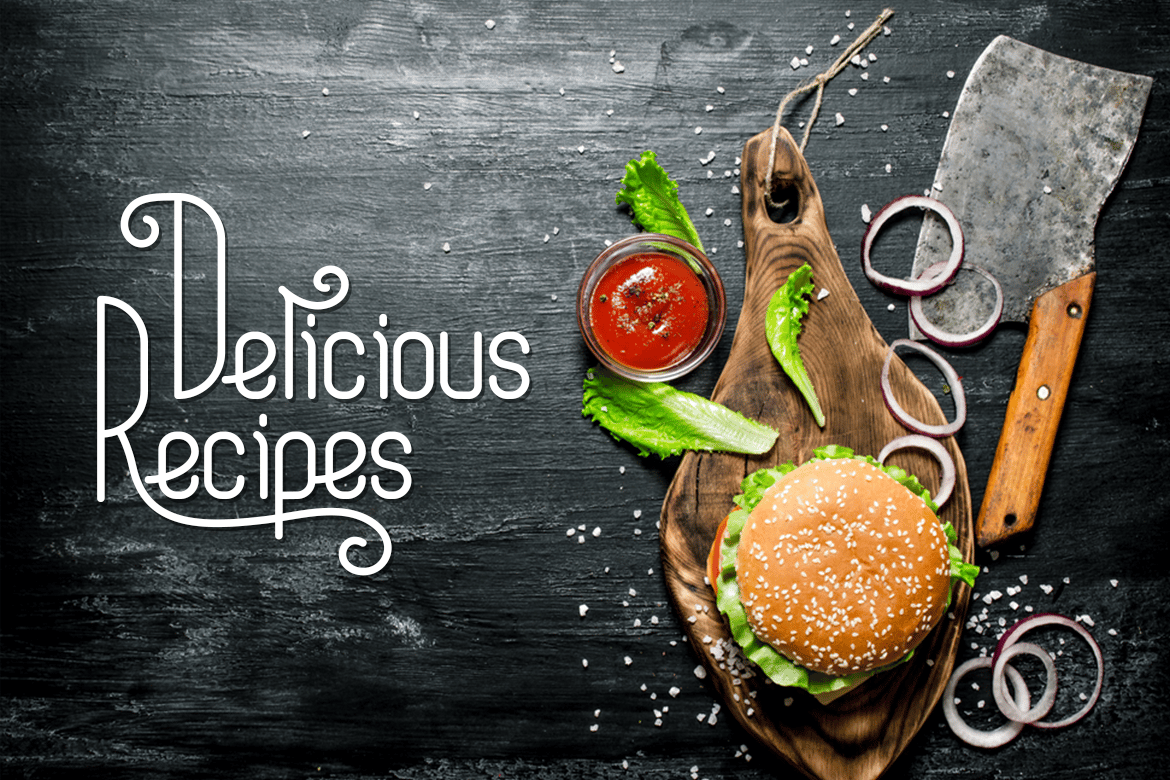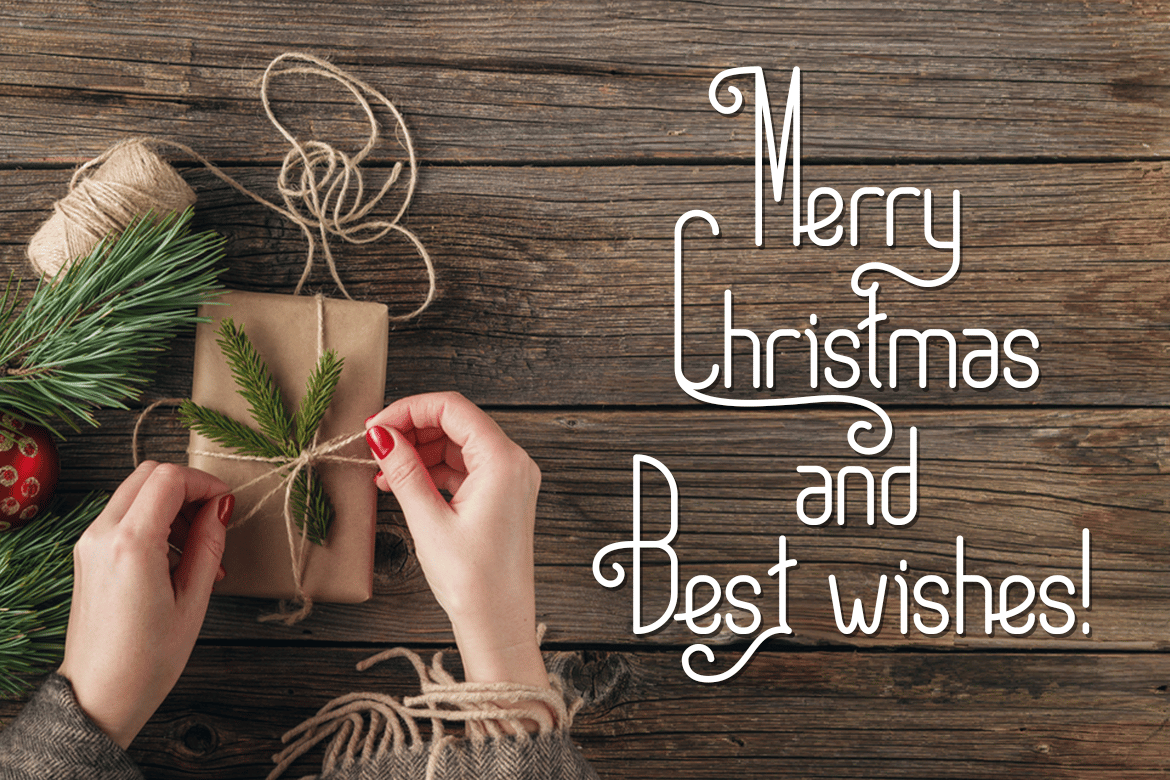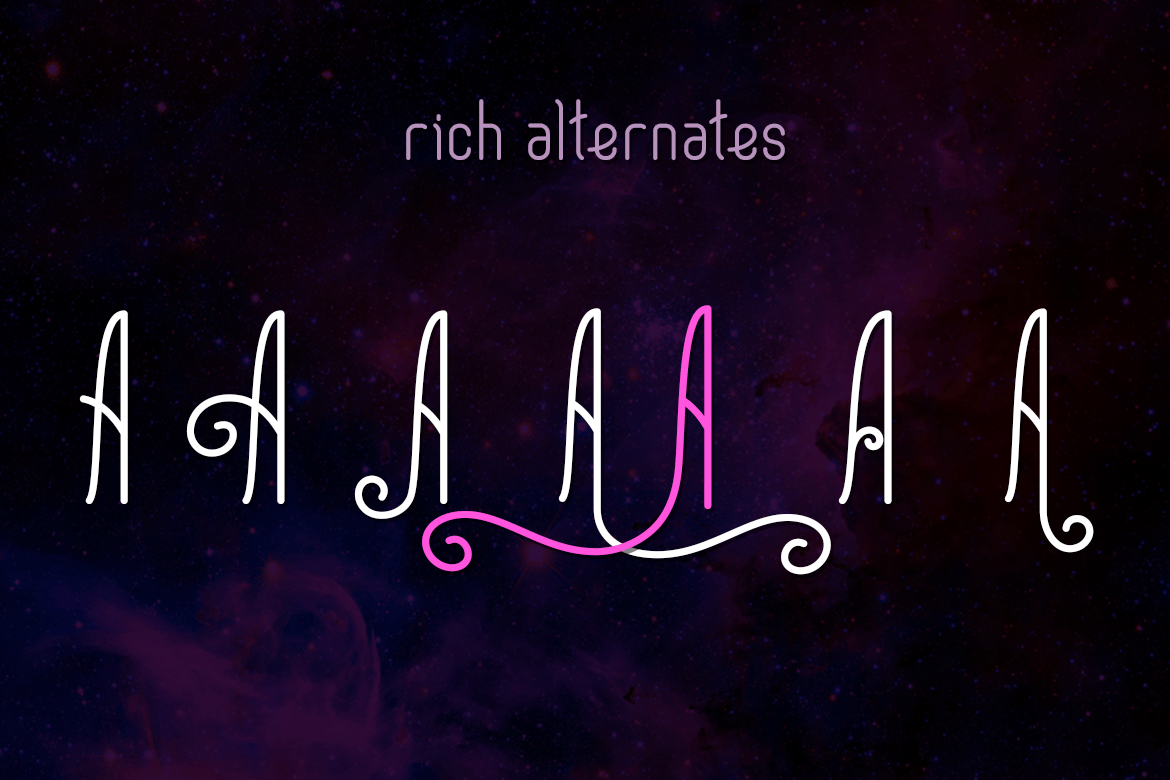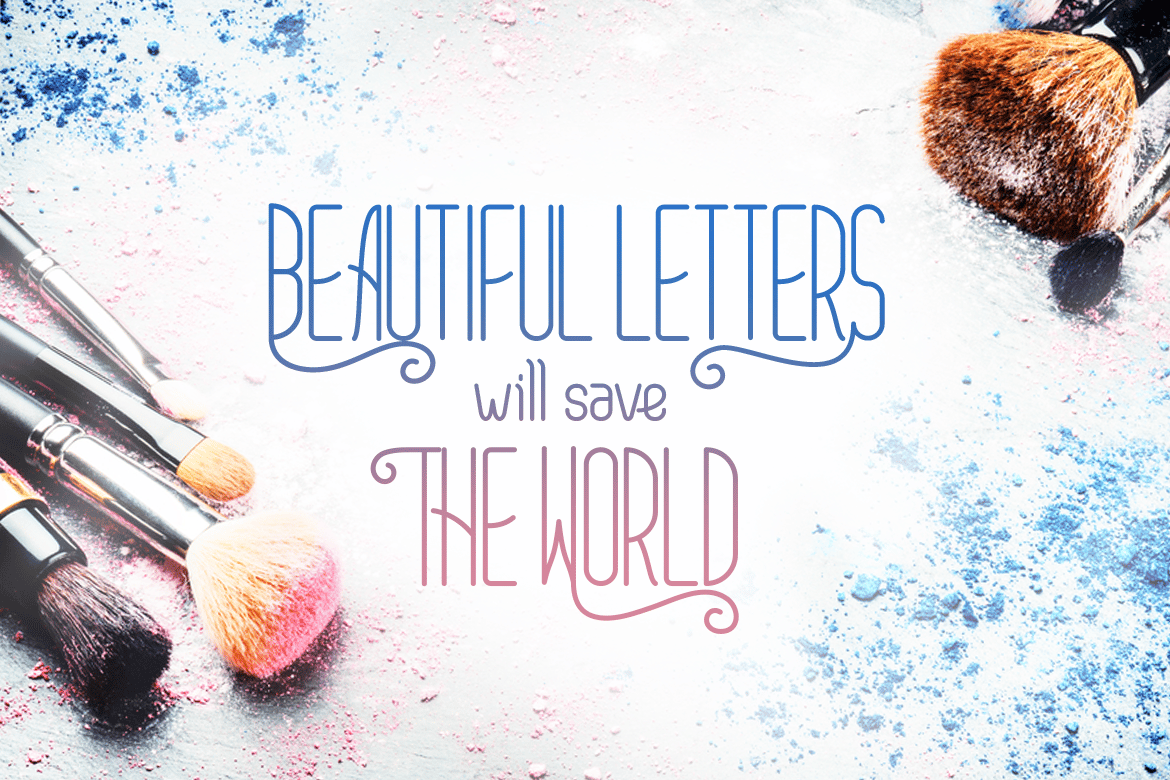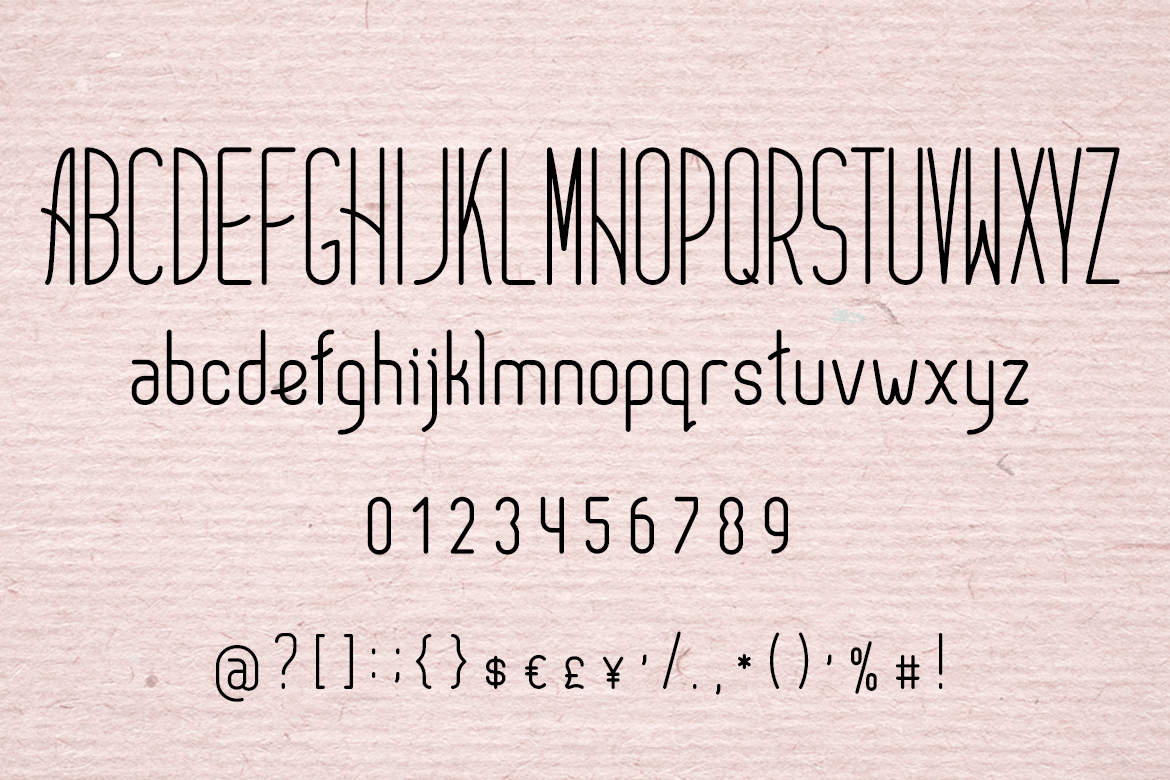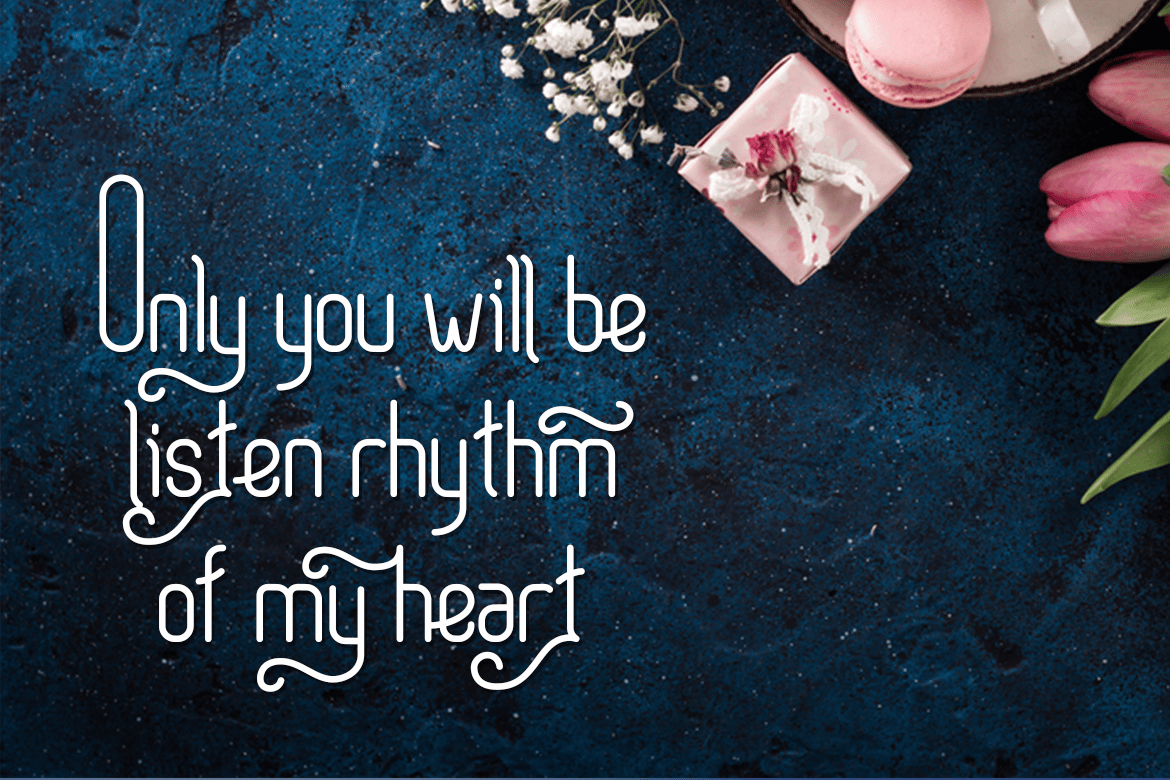
CharmingMelody| romantic curly font
Charming melody is a romantic and gentle sans serif font. This is a font with rounded corners and a very large amount of curls. It has numbers, punctuation, ligatures, several alternates for each letter and special character set. This beautiful font works great to make romantic card, wedding invitations, Christmas greetings, and many more .
- uppercase letters
- lowercase letters
- special ligatures
- many stylistic alternates for each letter
- numbers & punctuation
- special character set